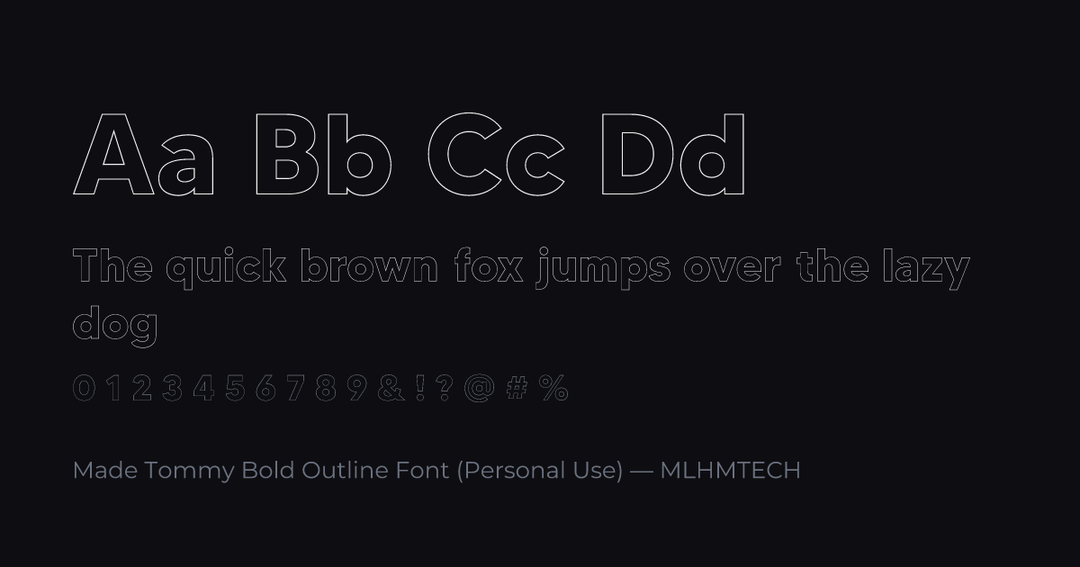
Made Tommy Bold Outline Font (Personal Use)
A bold, outlined display font that adds a modern, edgy touch to your designs. Perfect for headlines, logos, and posters.
Made Tommy Bold Outline is a striking display font characterized by its thick, outlined letterforms. It brings a contemporary, almost stencil-like feel to any project, making it ideal for grabbing attention. Whether you're designing a poster, branding, or social media graphics, this font adds a bold statement.